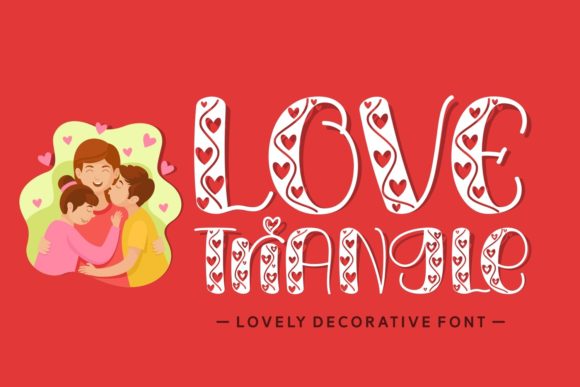
Get ready to fall head over heels for our captivating Love Triangle Font, a delightful dance of hearts that will leave you smitten! This enchanting decorative font is a true work of art, lovingly crafted by Lian-7NTypes to bring joy and enchantment to your creative endeavors.
Love Triangle isn't just another font; it's a symphony of hearts, each one delicately intertwined to create a breathtaking visual masterpiece. With its playful spirit and charming demeanor, this font will steal your heart with its irresistible allure.
Picture this: Your designs blooming with the gentle embrace of Love Triangle. Its delicate hearts will dance across your projects, adding a touch of magic to every word and shape. From enchanting invitations to whimsical packaging, Love Triangle will transform your creations into works of art.
But wait, there's more! Love Triangle isn't just a pretty face. It's a font with a purpose. Its romantic touch will evoke emotions, making your designs speak straight to the heart. Whether it's a love letter, a heartfelt greeting, or an enchanting storybook, Love Triangle will add a touch of enchantment that will leave a lasting impression.
So, why settle for ordinary when you can have extraordinary? Let Love Triangle be your font of choice, and together, you'll create masterpieces that will capture hearts and ignite imaginations. It's time to unleash your creativity and let Love Triangle weave its magical spell on your designs!